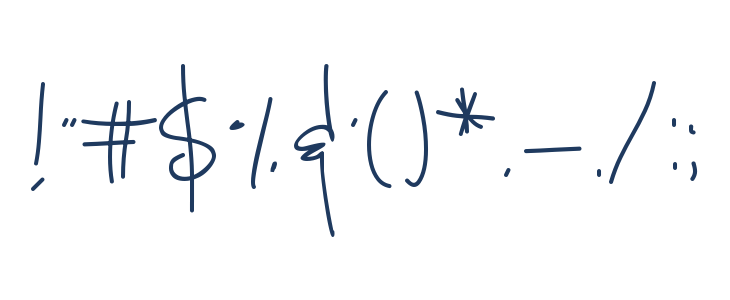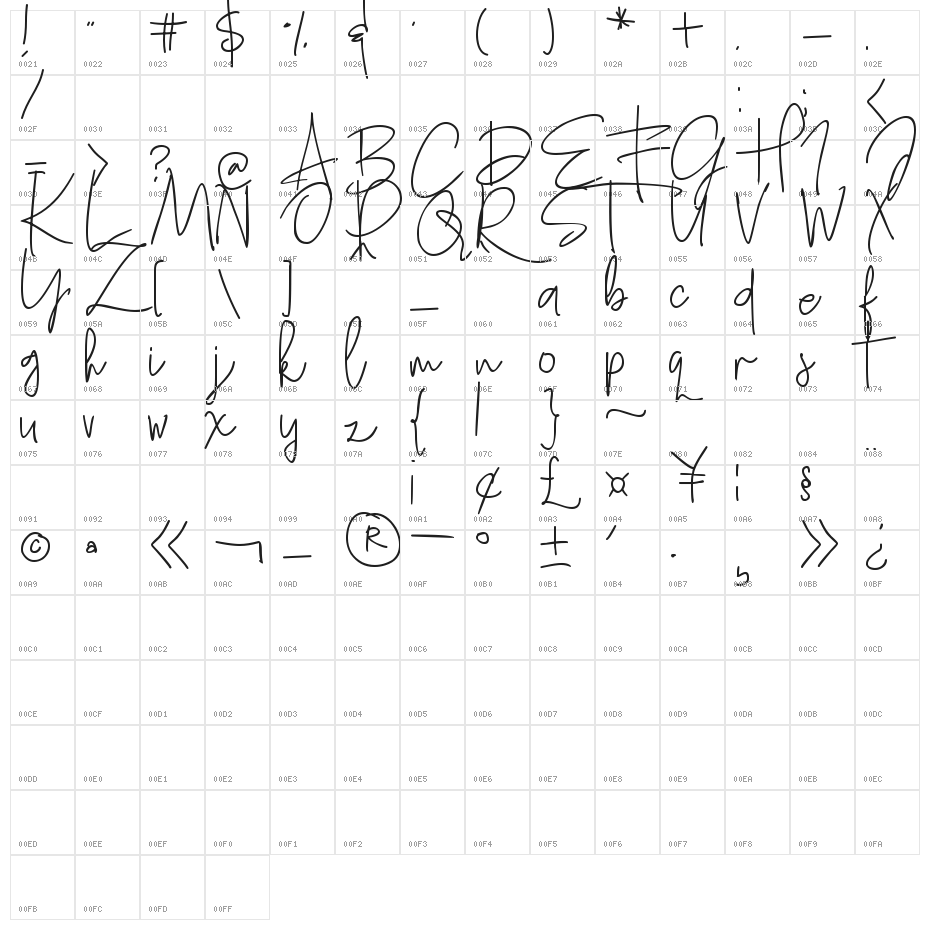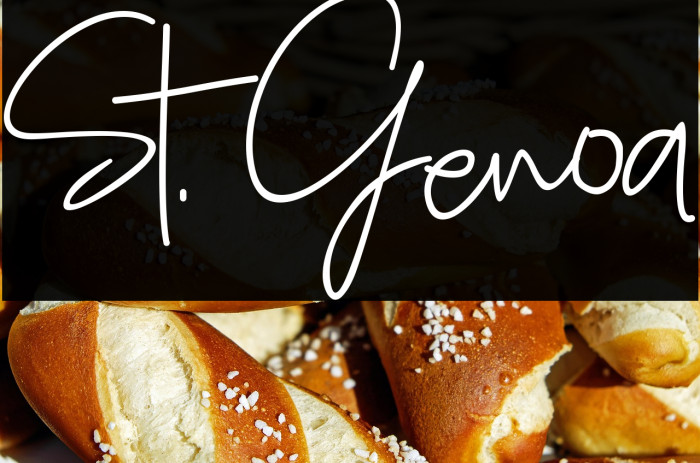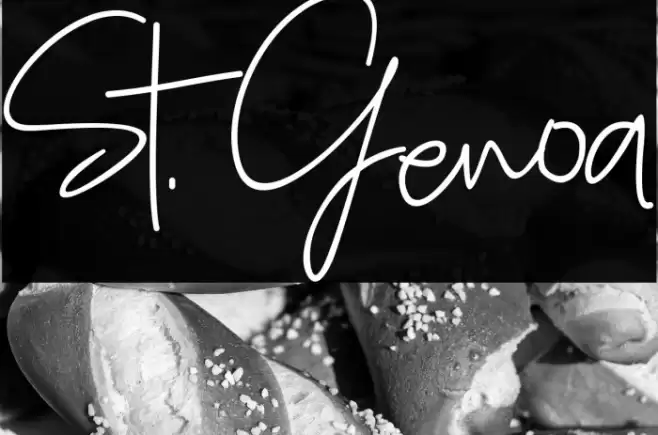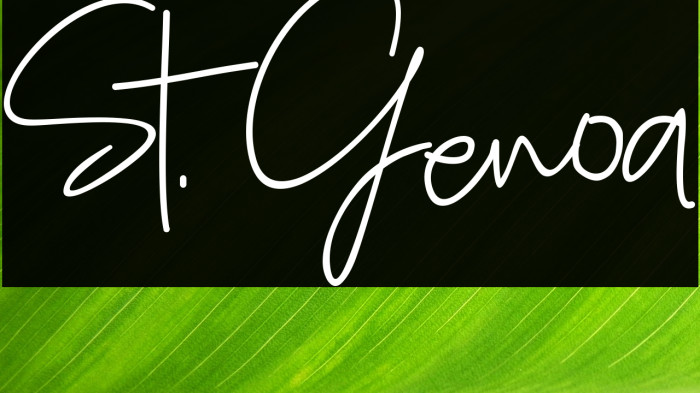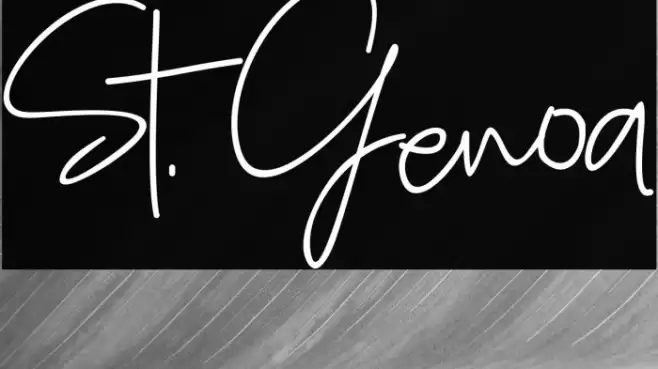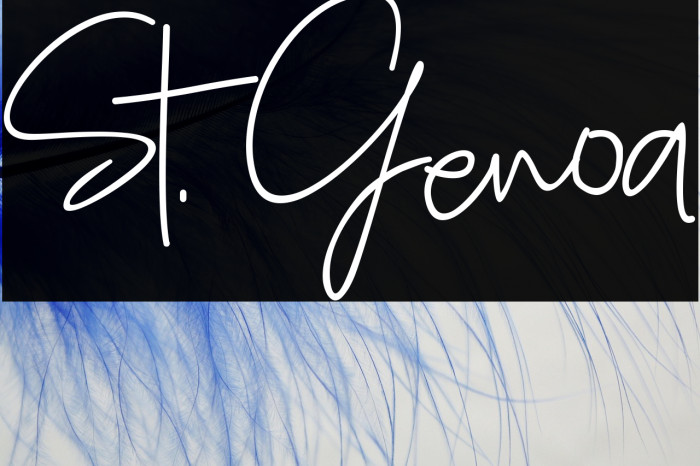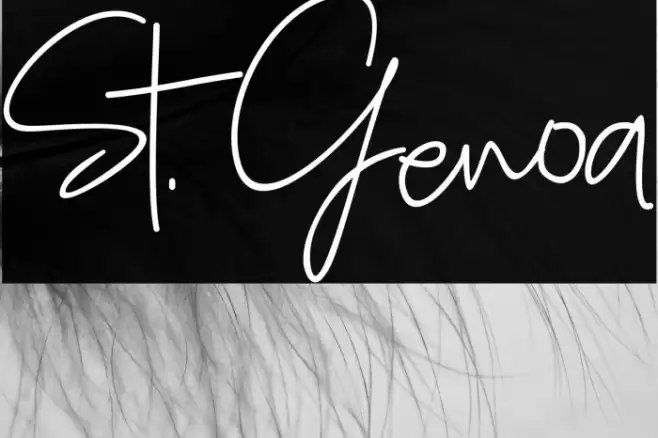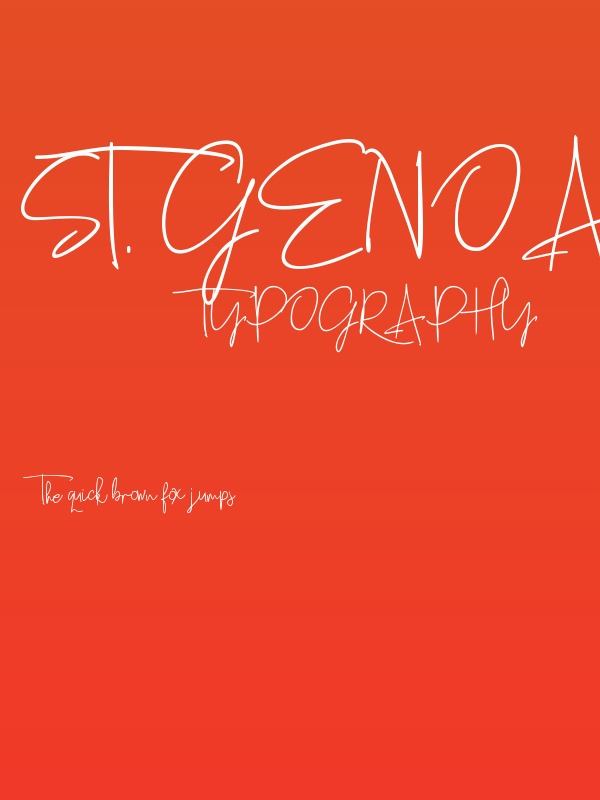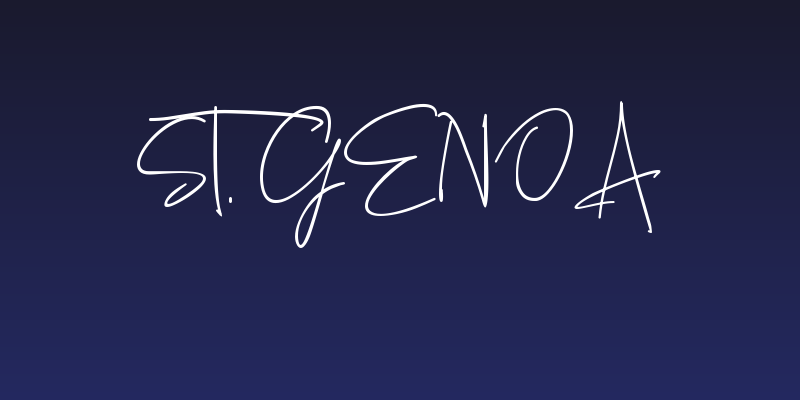
St. Genoa Font
St. Genoa Description
This font exhibits a lively and dynamic handwritten style, characterized by its fluid and continuous strokes. The uppercase letters are tall and slender, with a slight slant that adds to the casual and informal feel. Lowercase letters maintain a consistent flow, with some characters extending below the baseline, enhancing the handwritten aesthetic. The numerals and special characters follow the same energetic and playful design, making them blend seamlessly with the alphabet. The overall appearance is both modern and approachable, suitable for projects that require a personal touch.
| Proposed Projects | Ideal for personal branding, greeting cards, invitations, and social media graphics. |